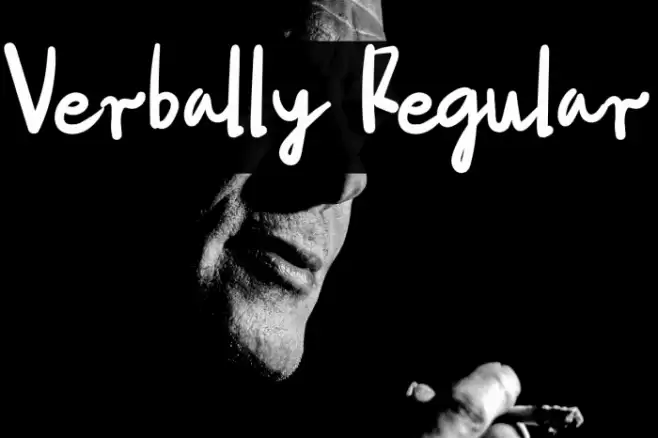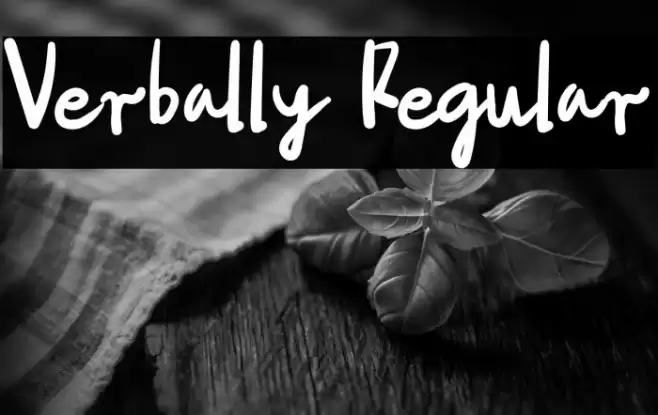
Verbally Regular Font
Verbally Regular Description
This font features a playful and casual handwritten style with a bold appearance. The uppercase letters are tall and slightly narrow, with a consistent stroke width that gives them a strong presence. The lowercase letters maintain the same playful aesthetic, with some characters having unique, whimsical flourishes that add to the font's charm. The numbers and special characters are designed to match the overall style, ensuring a cohesive look across all text. This font's informal and friendly vibe makes it suitable for projects that require a personal touch.
A playful, bold handwritten font with a casual and friendly style from Uncategorized fonts.
- Proposed Projects: Ideal for greeting cards, children's books, playful branding, and social media graphics.
- Overall Style: Casual, Playful
- Use Case: Headlines, Logos, Informal Text